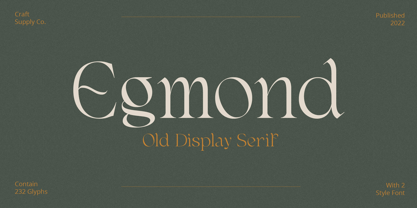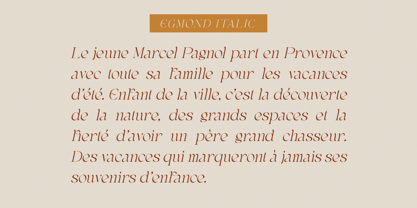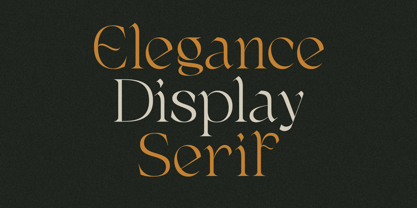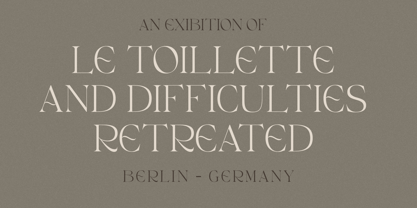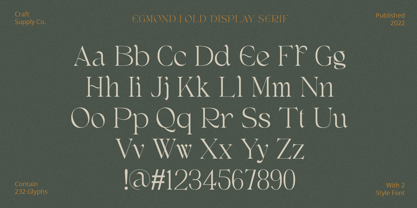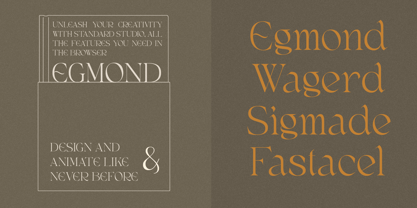
Egmond
by Craft Supply Co
The Egmond Font Family was designed by Trio Nazzar Saputra, Wahyu Hadi Yuana and published by Craft Supply Co. Egmond contains 2 styles and family package options. More about this family
Egmond – Old Display Serif work perfectly for fashion, e-commerce brands, trend blogs, wedding boutiques or any business that wants to appear upscale and chic.
Egmond – Old Display Serif also Suitable for Logo, greeting cards, quotes, posters, branding, name card, stationary, design title, blog header, art quote, typography, art, modern envelope lettering or book design, happening style like handdrawn design or watercolor design theme, craft design, any DIY project, book title, or any purpose to make your art/design project look pretty and trendy
Designers: Trio Nazzar Saputra, Wahyu Hadi Yuana
Foundry: Craft Supply Co